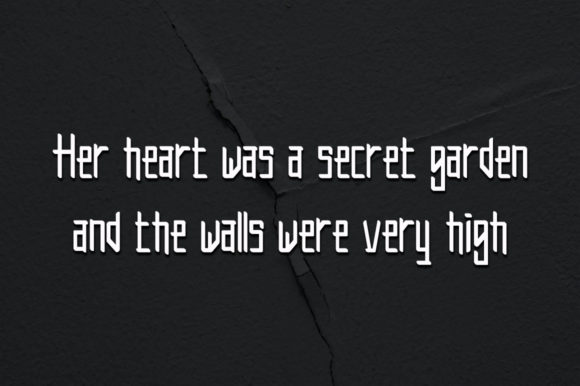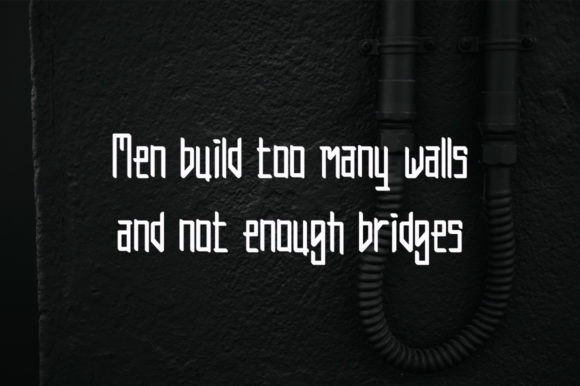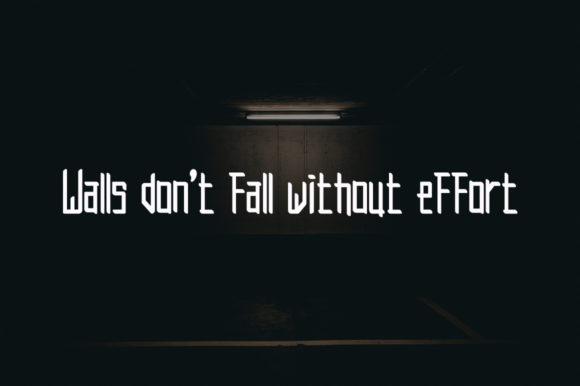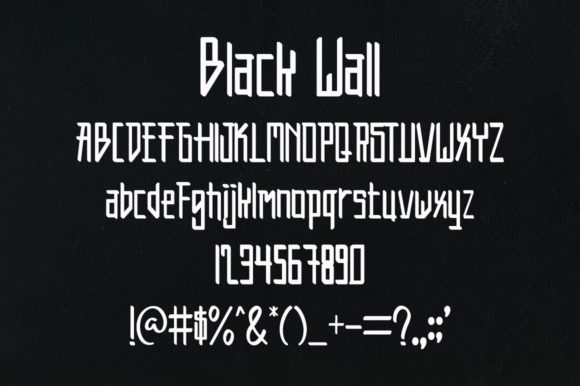
Introducing Black Wall Font: The Perfect Blend of Fun and Friendliness
Are you on the hunt for a display font that’s both clean and quirky? Look no further than Black Wall Font! This charming font is designed to add a touch of personality to your logos, branding, social media, and DIY projects. In this article, we’ll dive into the world of Black Wall Font, exploring its features, benefits, and uses.
What is Black Wall Font?
Black Wall Font is a fun and friendly display font that’s perfect for designers and crafters alike. Its clean lines and quirky charm make it an excellent choice for a wide range of projects, from logos and branding to social media graphics and crafty DIY endeavors.
Key Features of Black Wall Font
- Clean and Quirky Design: Black Wall Font boasts a unique blend of cleanliness and quirkiness, making it stand out from more traditional fonts.
- Display Font: Designed specifically for display purposes, Black Wall Font is perfect for headlines, titles, and short phrases.
- Versatile: This font is suitable for a wide range of projects, including logos, branding, social media graphics, and DIY crafts.
Benefits of Using Black Wall Font
So, why choose Black Wall Font for your next project? Here are just a few benefits of using this fantastic font:
- Adds Personality: Black Wall Font brings a touch of fun and friendliness to your designs, helping to establish a strong brand identity.
- Easy to Read: Despite its quirky design, Black Wall Font is surprisingly easy to read, making it perfect for short phrases and headlines.
- Enhances Creativity: With its unique design, Black Wall Font can help stimulate your creativity and inspire new ideas.
Uses for Black Wall Font
Black Wall Font is an incredibly versatile font that can be used in a variety of contexts. Here are some ideas to get you started:
- Logos and Branding: Use Black Wall Font to create a memorable logo or brand identity that stands out from the crowd.
- Social Media Graphics: Add a touch of personality to your social media graphics, including Facebook posts, Twitter headers, and Instagram stories.
- DIY Crafts: Black Wall Font is perfect for crafty DIY projects, such as handmade cards, gift tags, and scrapbooking.
Tips for Using Black Wall Font
To get the most out of Black Wall Font, here are a few tips to keep in mind:
- Use it Sparingly: Due to its bold design, Black Wall Font works best when used sparingly. Try using it for headlines or short phrases.
- Experiment with Colors: Black Wall Font looks great in a variety of colors. Experiment with different hues to find the perfect combination for your project.
- Pair it with Other Fonts: Black Wall Font pairs well with a range of other fonts. Try combining it with a clean sans-serif font for added contrast.
In conclusion, Black Wall Font is a fantastic display font that’s perfect for designers and crafters alike. Its unique blend of cleanliness and quirkiness makes it an excellent choice for a wide range of projects. Whether you’re looking to create a memorable logo, add personality to your social media graphics, or enhance your DIY crafts, Black Wall Font is an excellent choice.